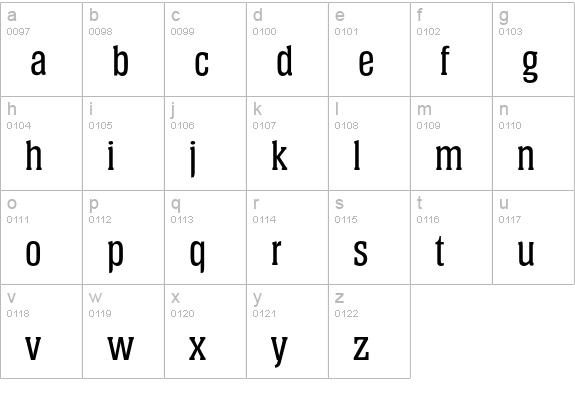
Helium-Medium is a balanced, medium-weight variant in the Helium typeface family \xE2\x80\x94 well suited to sub-headlines, navigation, and balanced editorial work.
Helium-Medium font is a modern and stylish typeface that effortlessly combines elegance with readability. Its sleek and clean lines make it the perfect choice for a wide range of design projects, from branding and advertising to editorial layouts and web design. The Helium-Medium font features a balanced and harmonious design, with just the right amount of curvature to add a touch of sophistication. Its medium weight strikes the perfect balance between boldness and subtlety, making it suitable for both headers and body text. One of the standout features of the Helium-Medium font is its versatility. Whether you are designing a logo, creating a poster, or crafting a website, this font will adapt seamlessly to any layout or composition. Its timeless appeal ensures that your designs will remain fresh and contemporary for years to come. What's more, Helium-Medium font is freely available for download at FontsMarket.com. This means that you can access this exceptional font without any cost. FontsMarket.com guarantees the highest quality fonts, and with Helium-Medium font, you can elevate your designs without breaking the bank. So don't miss out on this incredible opportunity to enhance your projects with the Helium-Medium font. Download it for free today at FontsMarket.com and experience the power of this exceptional typeface.